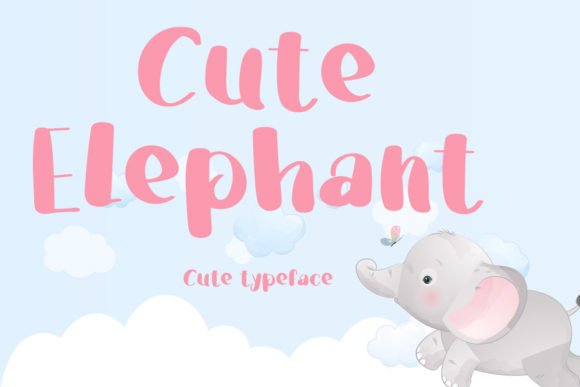
Enter the Cute Elephant Font, a delightful display font that’s equal parts playful and pretty. Its whimsical letters are the perfect addition to any design project, from apparel and notebooks to stationery and labels. With the Cute Elephant Font, you’ll be able to add a touch of personality and charm to even the most mundane designs.
For designers, the Cute Elephant Font is a valuable tool that can help take your projects to the next level. Its versatility and charm make it a must-have for anyone looking to add a little extra something special to their designs.
Cute Elephant Font Key Features
- Unique Characteristics: The font features a playful, whimsical design with rounded edges and a distressed texture, giving it a charming, hand-drawn feel.
- Character Set: The font includes a comprehensive character set, including uppercase and lowercase letters, numbers, punctuation marks, and special characters.
Cute Elephant Font Review
Overall, I’d say the Cute Elephant Font is a delightful addition to any project that needs a playful touch. Here are some aspects that shine: ✨
- Unique and quirky design that stands out from the crowd
- Works well for titles, headings, and short text passages
- Good for projects targeting a younger audience, like children’s books or educational materials
- Easy to read and recognize, even at smaller font sizes
- Limited character set and font sizes may not be suitable for extensive text content
- Not ideal for formal or professional projects, as it may come across as too childish
Overall, I’d give the Cute Elephant Font 4 out of 5 stars. It’s a fun and creative font that’s perfect for projects that need a lighthearted touch. Just be mindful of its limitations and use it accordingly.
For the most effective use of Cute Elephant Font, consider the following tips:
- Use it for children’s books, nursery decorations, and other kid-friendly designs.
- Pair it with bright and playful colors to create a whimsical atmosphere.